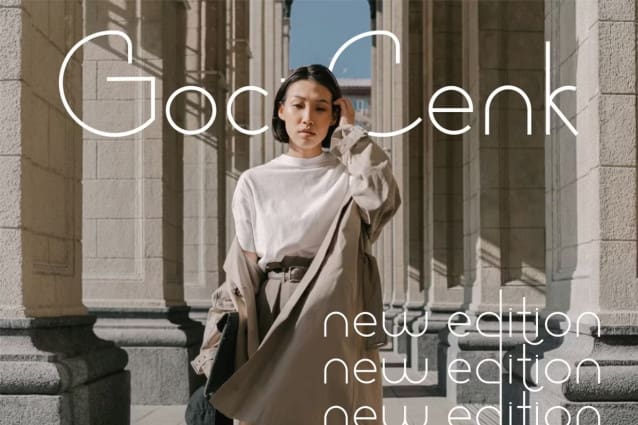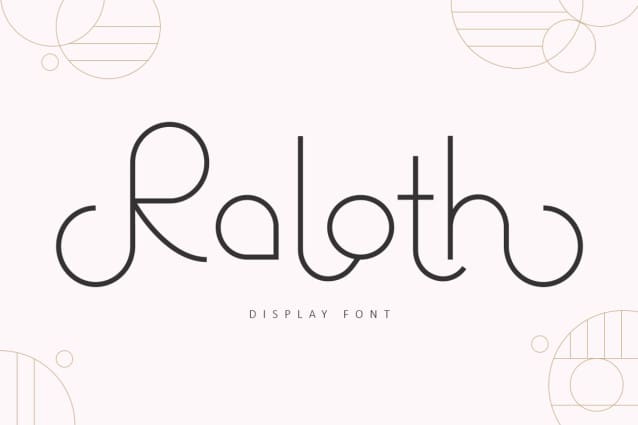
Raloth Display Font
Raloth Display Font is the modern display font. Mix special sans with essential rounded ligature and alternates, make this font very exclusive and elegant. Special used for your projects design like a fashion, business cards, logotype, music projects, architecture and packaging products.